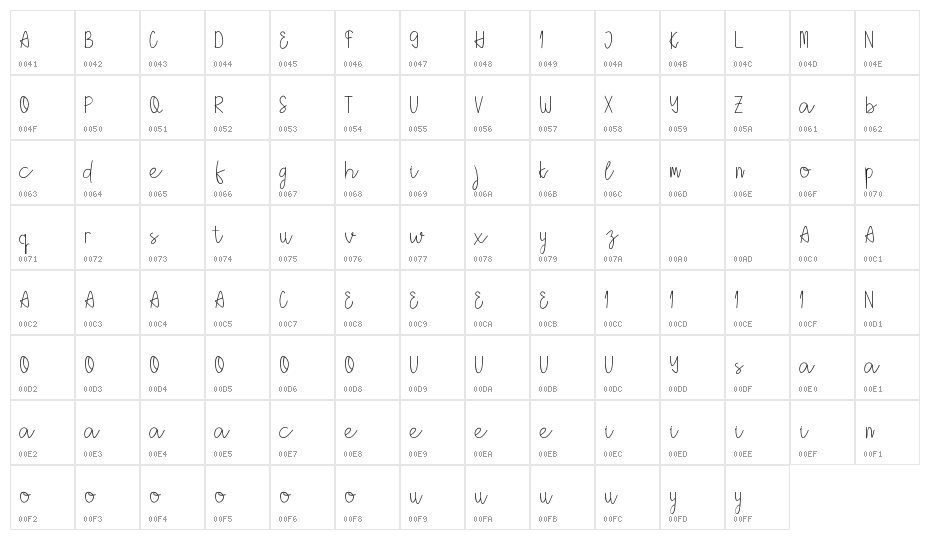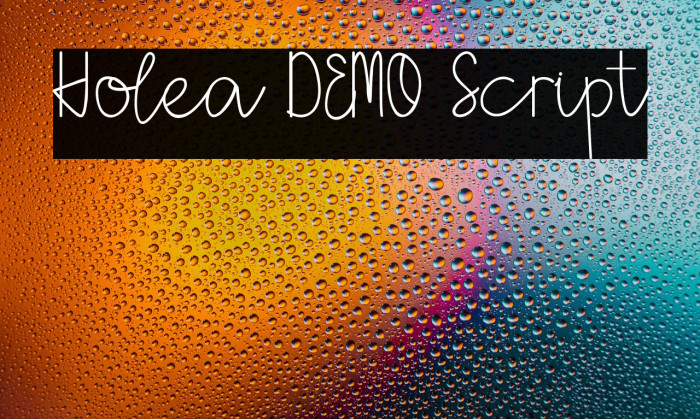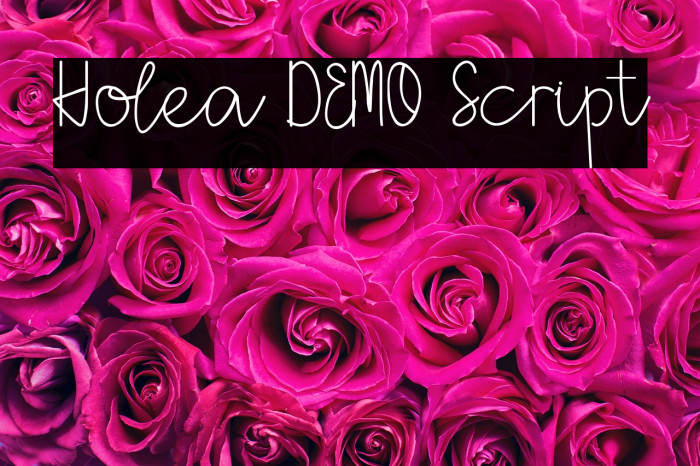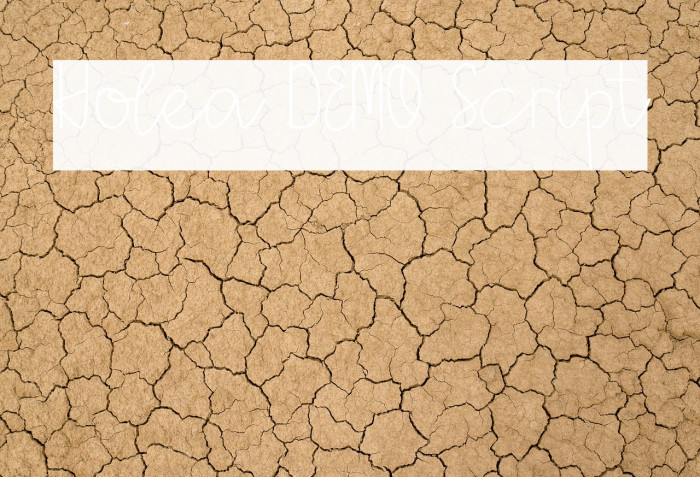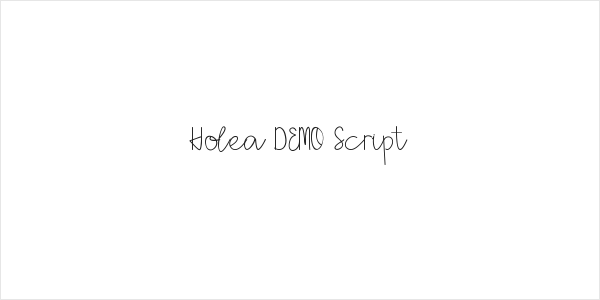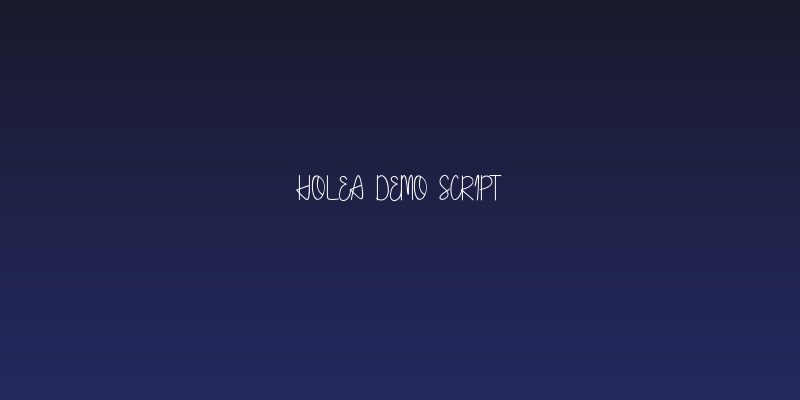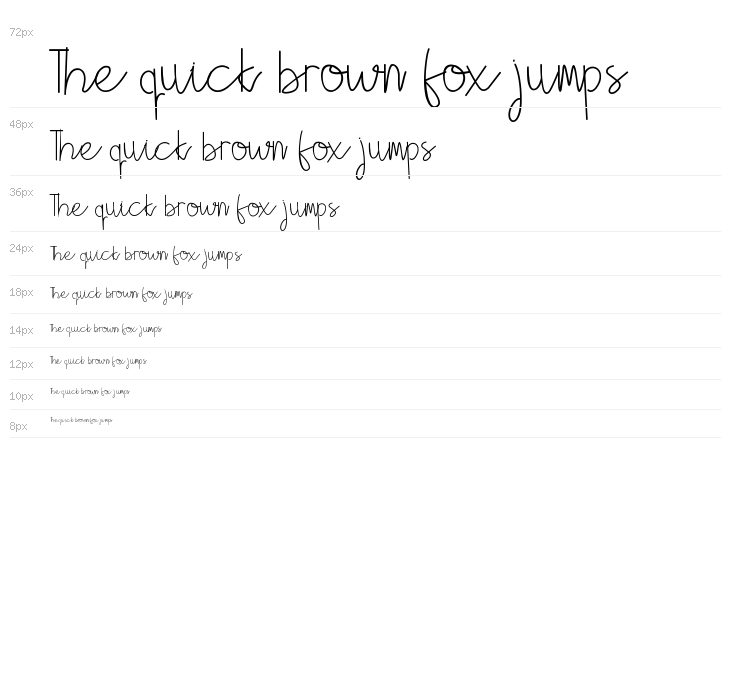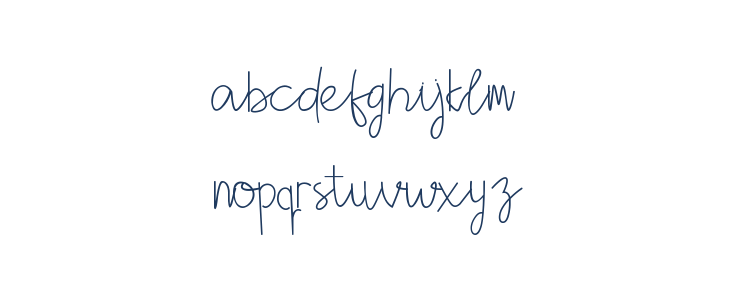
Holea DEMO Script Font
Holea DEMO Script Description
This font features a playful and whimsical script style, characterized by its flowing, interconnected letters. The uppercase letters are bold and slightly condensed, with a unique flair that adds a touch of elegance. The lowercase letters maintain a consistent flow, enhancing readability while retaining a casual, handwritten feel. The numerals and special characters are designed to complement the overall style, ensuring versatility across various applications. The font's thin strokes and moderate contrast provide a delicate appearance, making it suitable for creative and artistic projects.
Use CaseLogos, Invitations, Greeting cards
Proposed ProjectsIdeal for invitations, greeting cards, branding, and creative projects that require a personal touch.